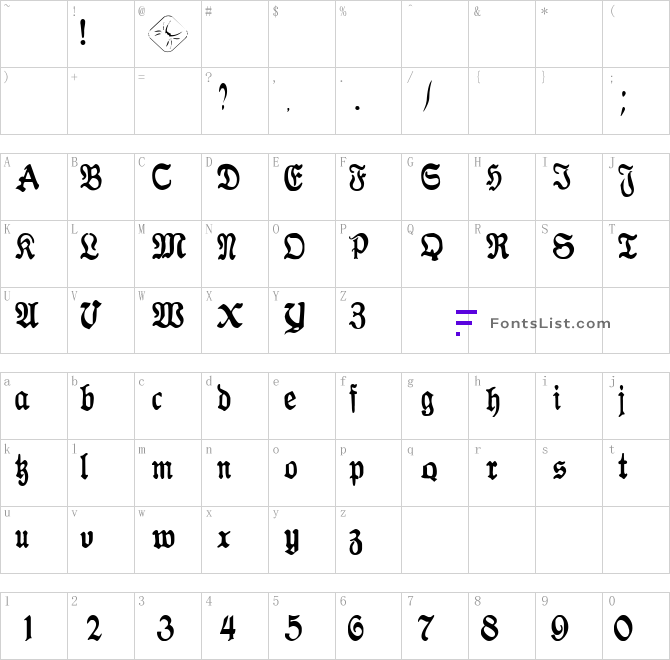
- Font Name:Antraxja Goth 1938
Antraxja-Goth-1938.ttf is a very beautiful artistic font, Antraxja-Goth-1938.ttf is widely used in the design and printing of various books and pictures,Antraxja-Goth-1938.ttf has a strong visual impact,Antraxja-Goth-1938.ttf is a commonly used font in newspapers, magazines and books, and is used in posters, e-commerce Poster design, store design, logo design, font design and other fields.Antraxja-Goth-1938.